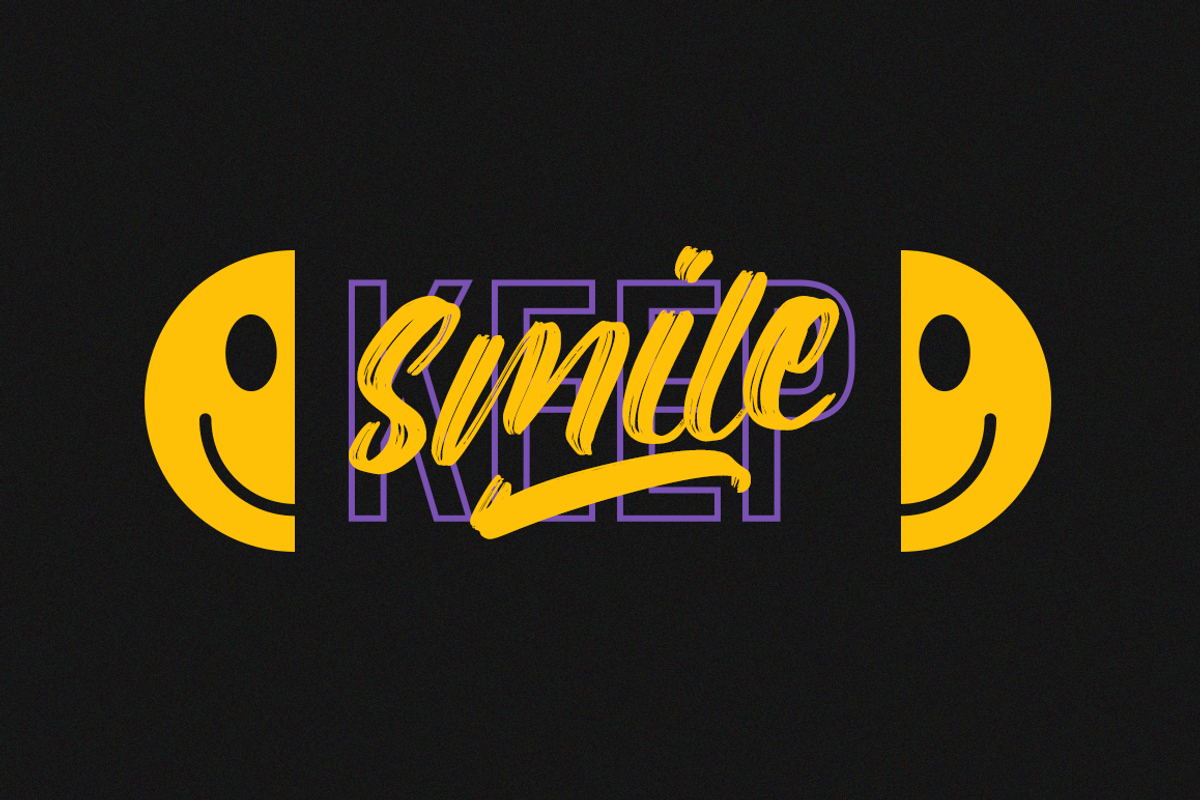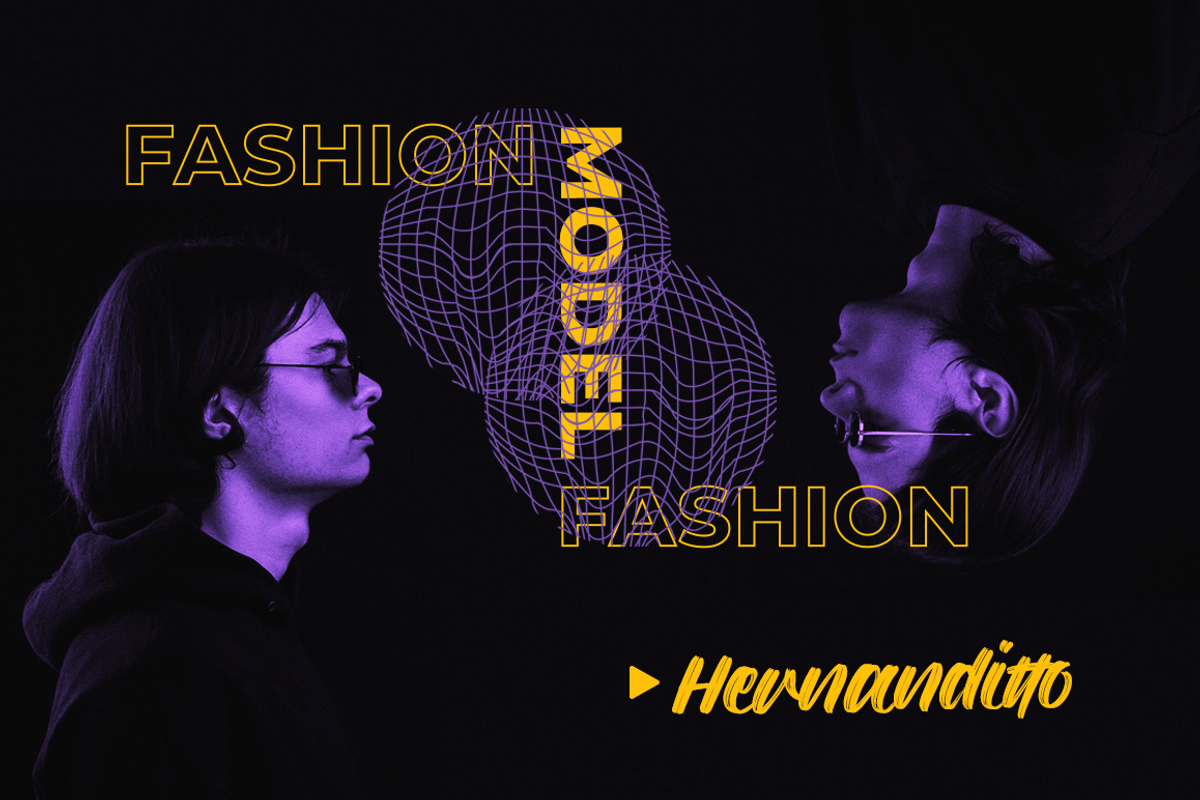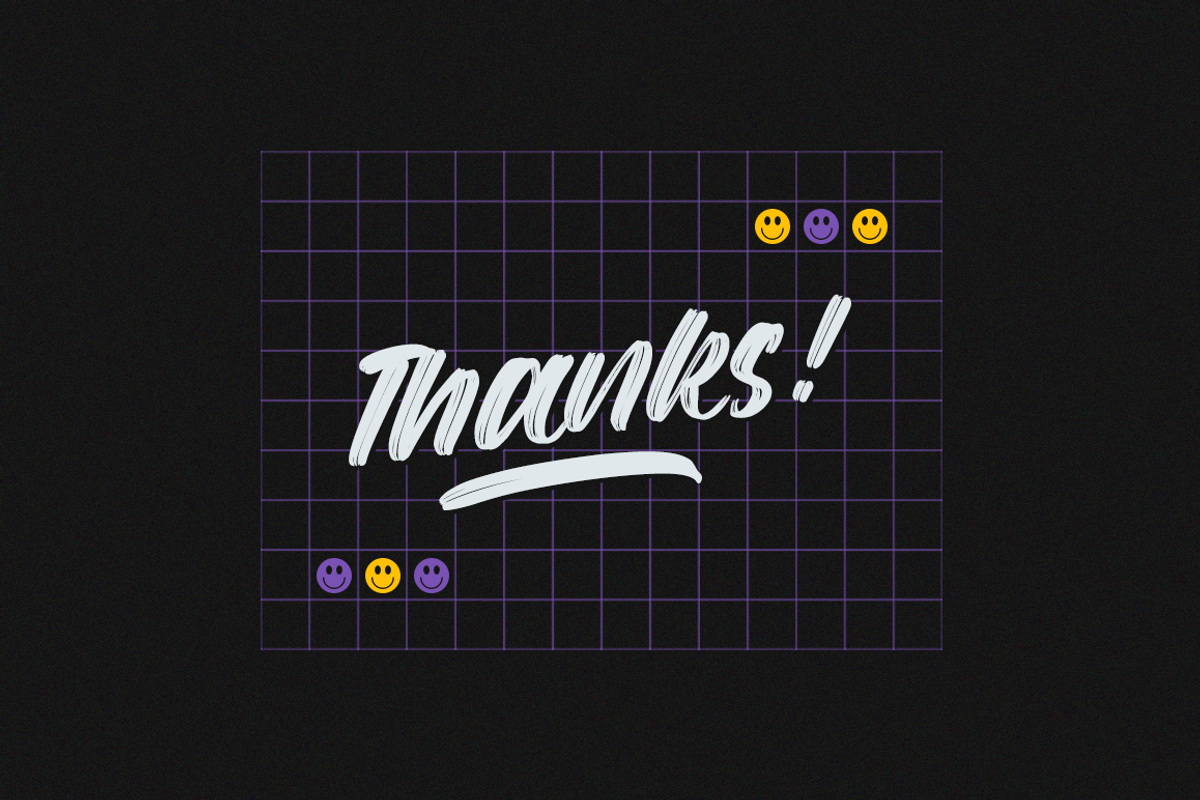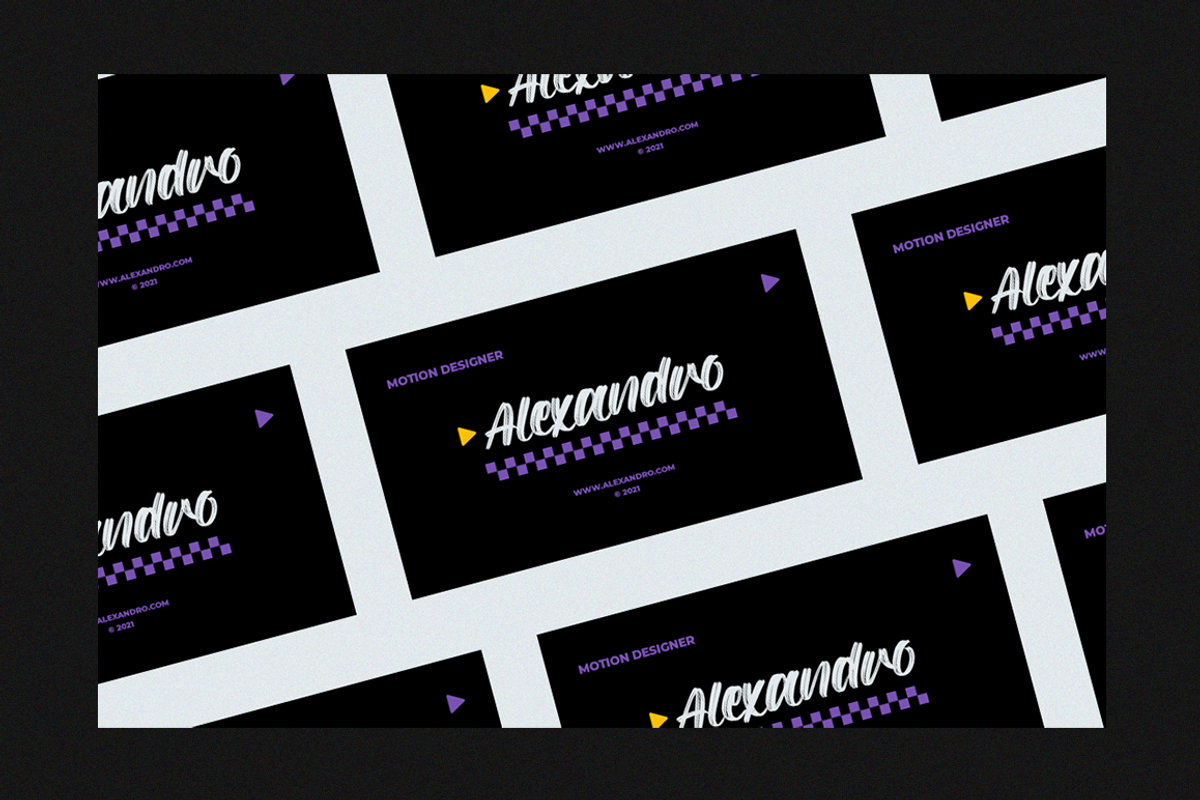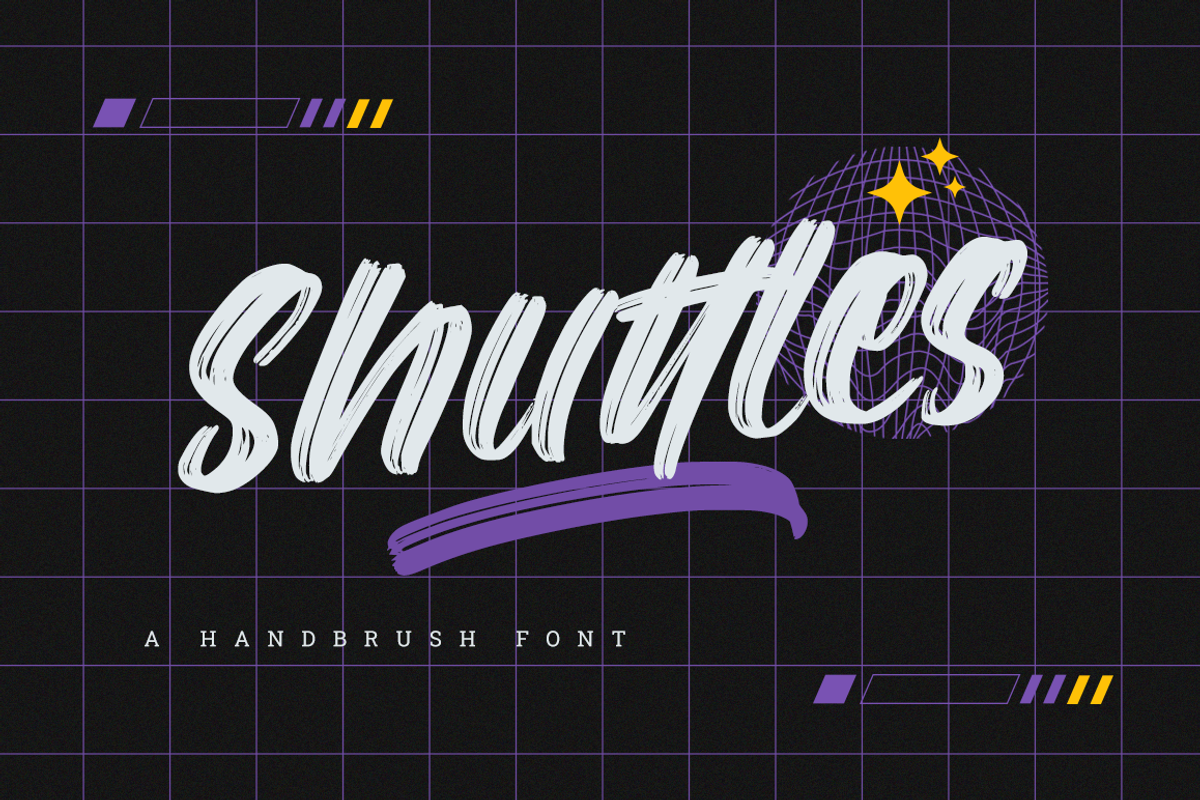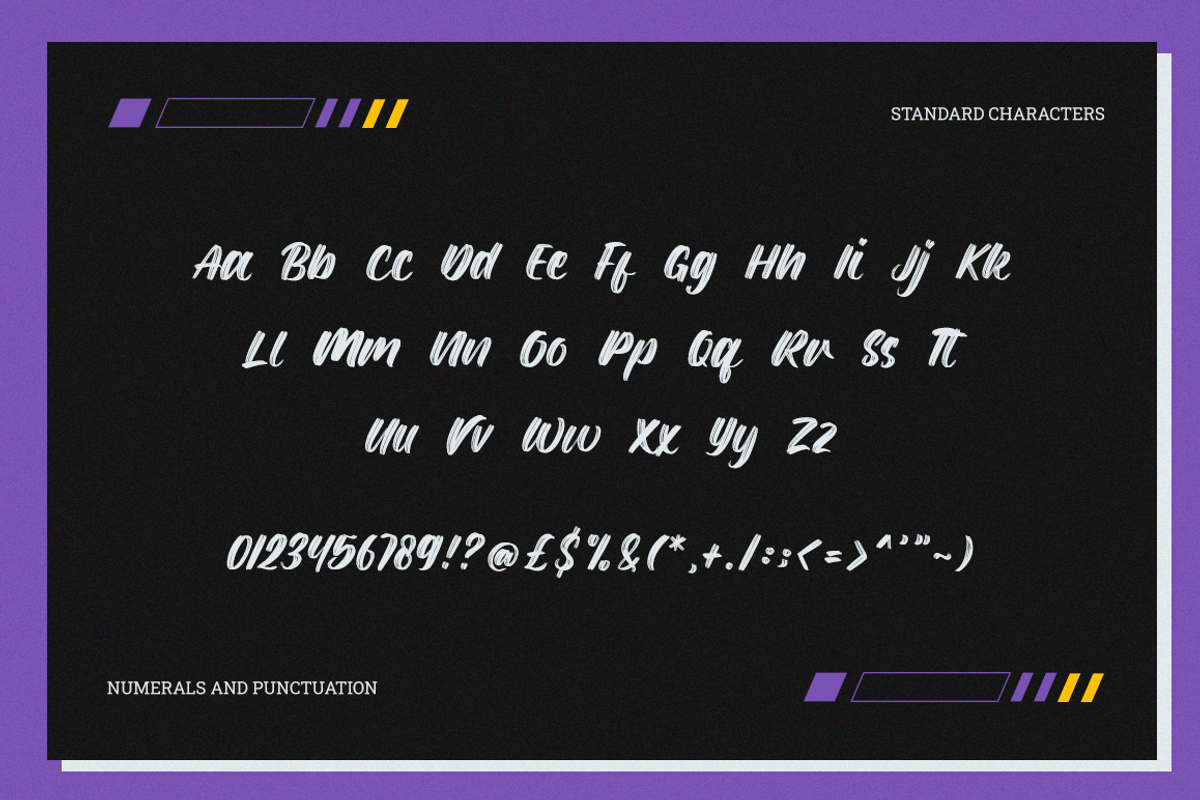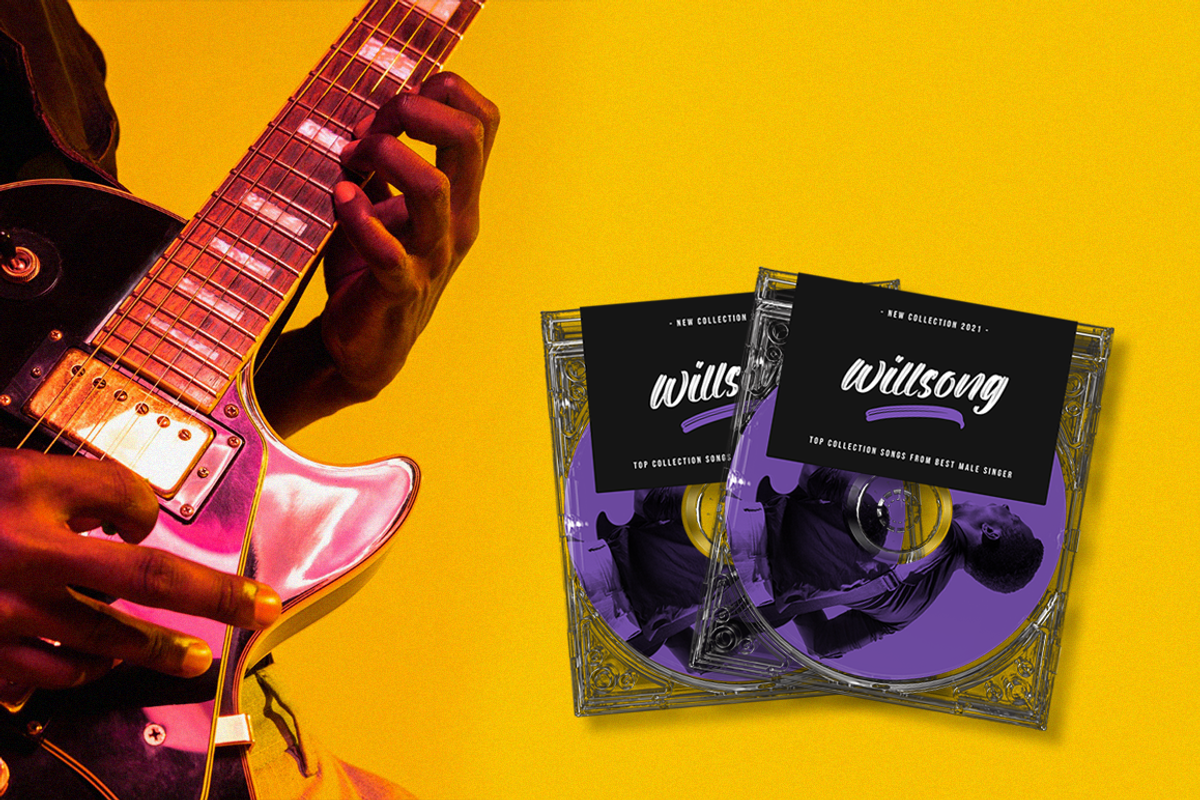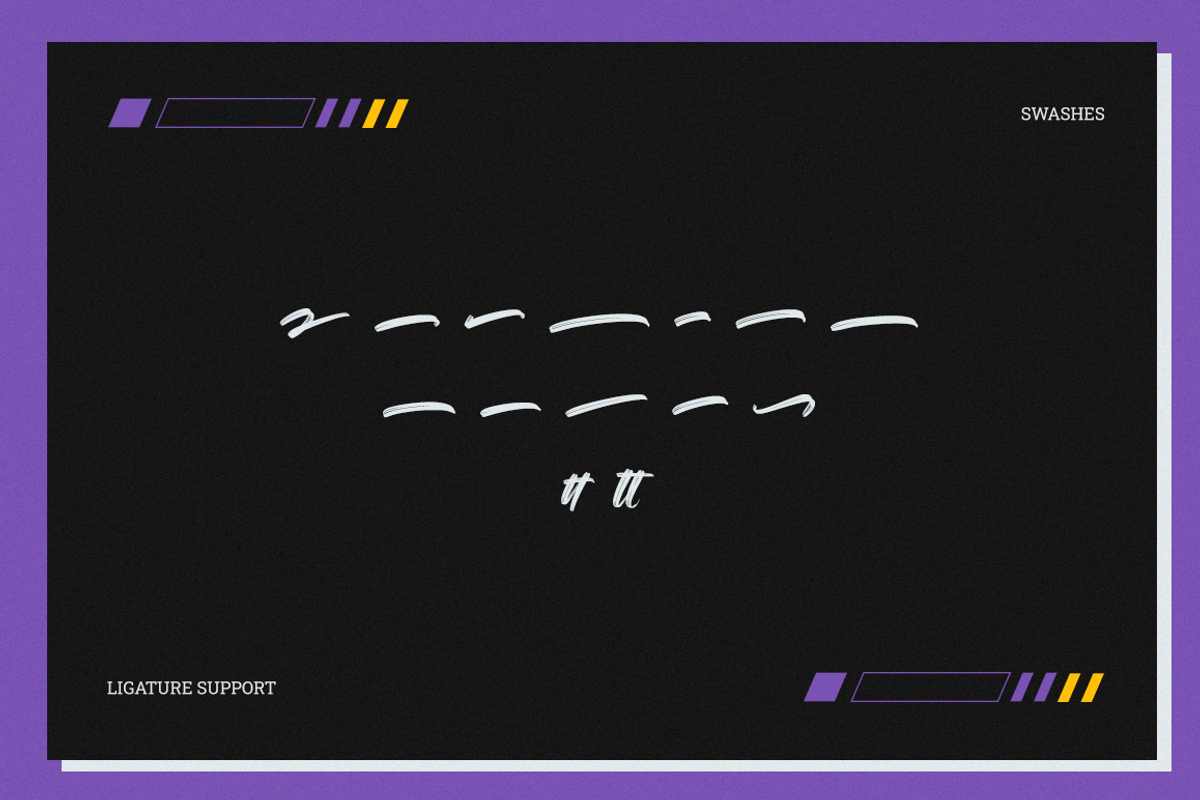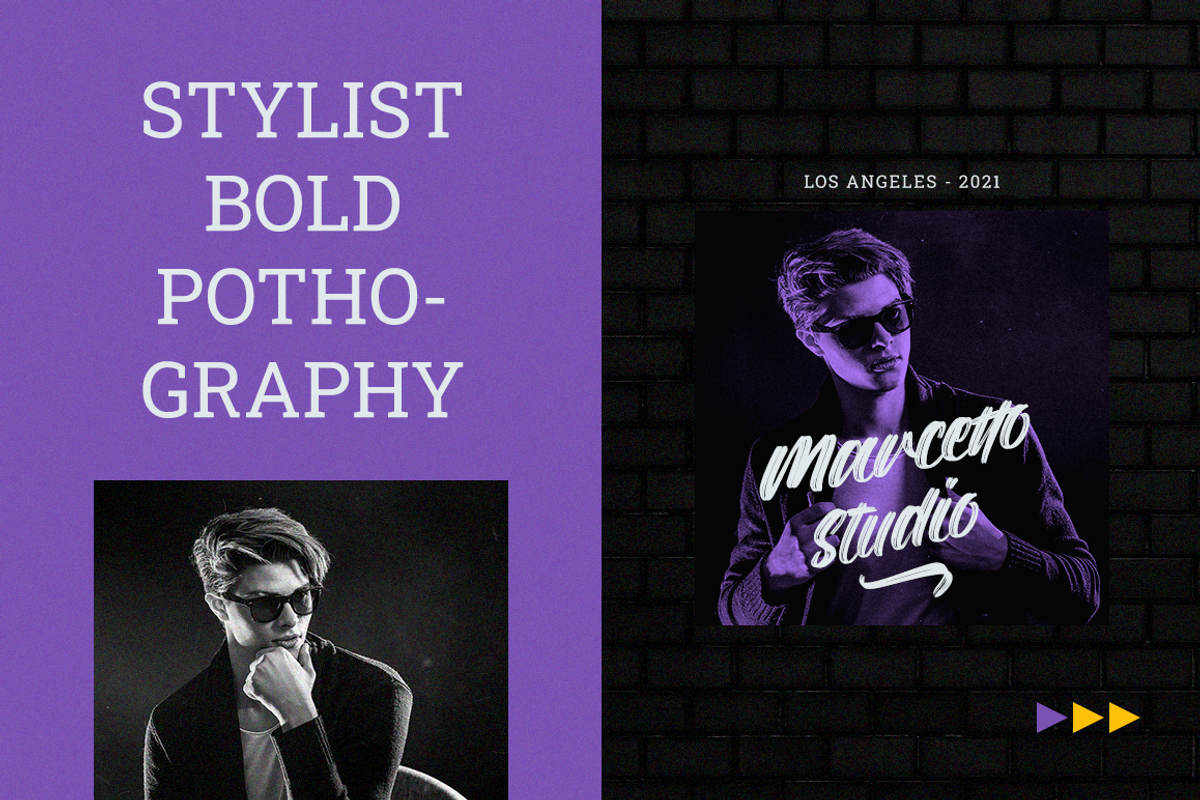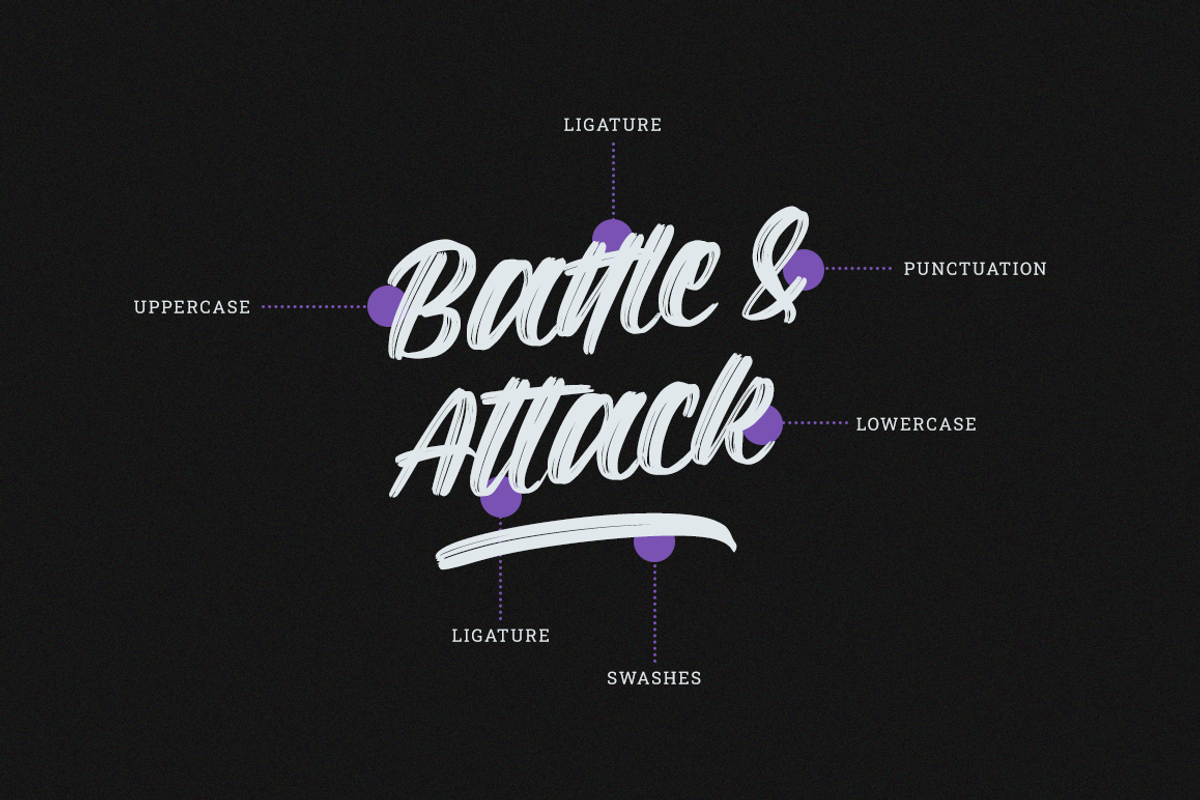
Shuttles - Elegant Brush Font
Shuttles is a new modern brush font, incredibly adaptable to all sorts of designs. It is suitable for any branding, product packaging, invitation, quote, t-shirt, label, poster, logo that you wish to create.